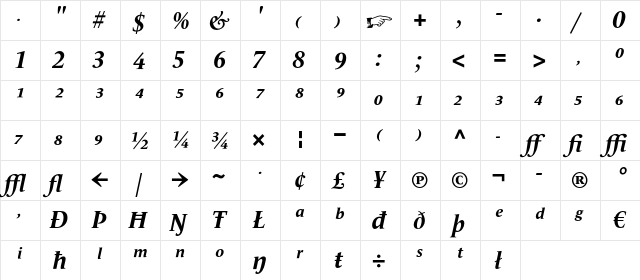
LeMonde Livre Expert BoldItalic
Design Context for LeMonde Livre Expert Typeface
LeMonde Livre Expert is a composed and adaptable typeface that performs quietly and consistently across a wide range of design contexts. Its italic angle brings a sense of urgency and motion to the letterforms. Its bold stroke weight gives it real presence on the page.
Pro Tip: Try LeMonde Livre Expert for annotation and caption copy alongside an upright companion — the contrast in angle creates a dynamic but ordered typographic system.